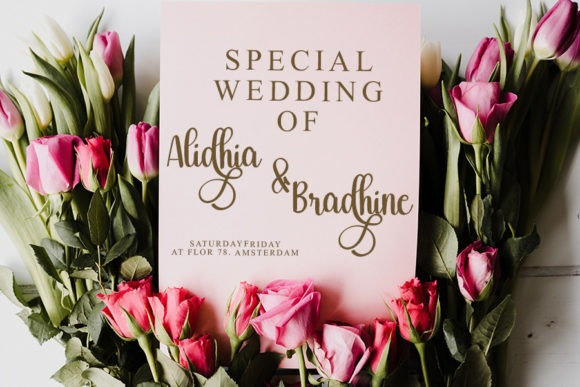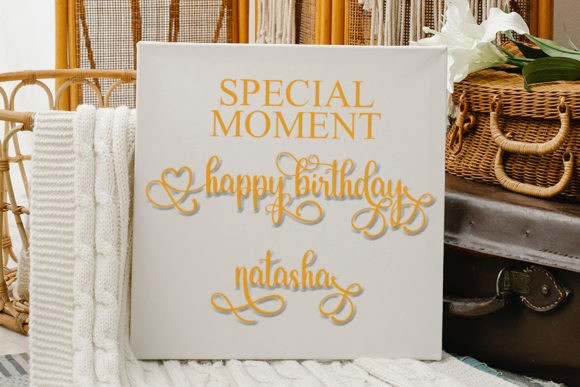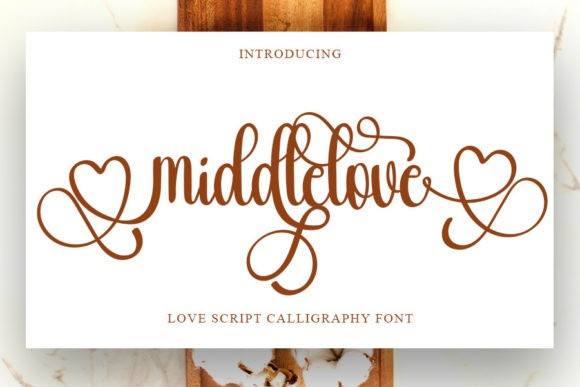
Middlelove Font
Middlelove Font is an enchanting handwritten font. It will add a luxury spark to any design project that you wish to create! This font is PUA encoded which means you can access all of the amazing glyphs and ligatures with ease!